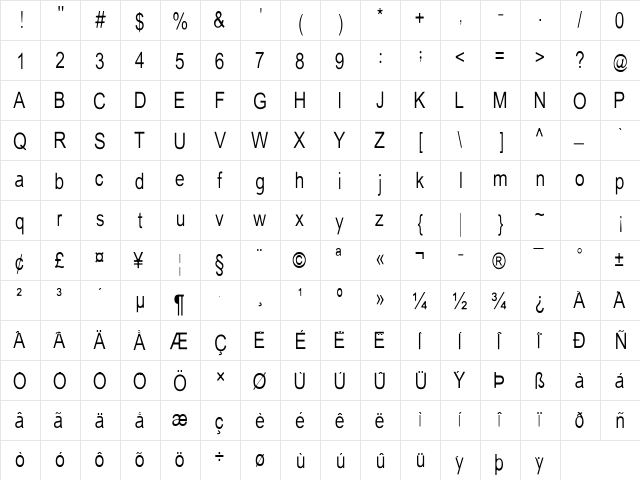
Tempest-narrow Regular
| Designer | George Herbert Hirst & Wilfred Rhodes 2001 |
Design Context for Tempest-narrow Typeface
Tempest-narrow offers clean, dependable letterforms without strong stylistic allegiance, making it a practical choice for designers who need flexibility. The condensed width makes it efficient for tight spaces without sacrificing legibility.